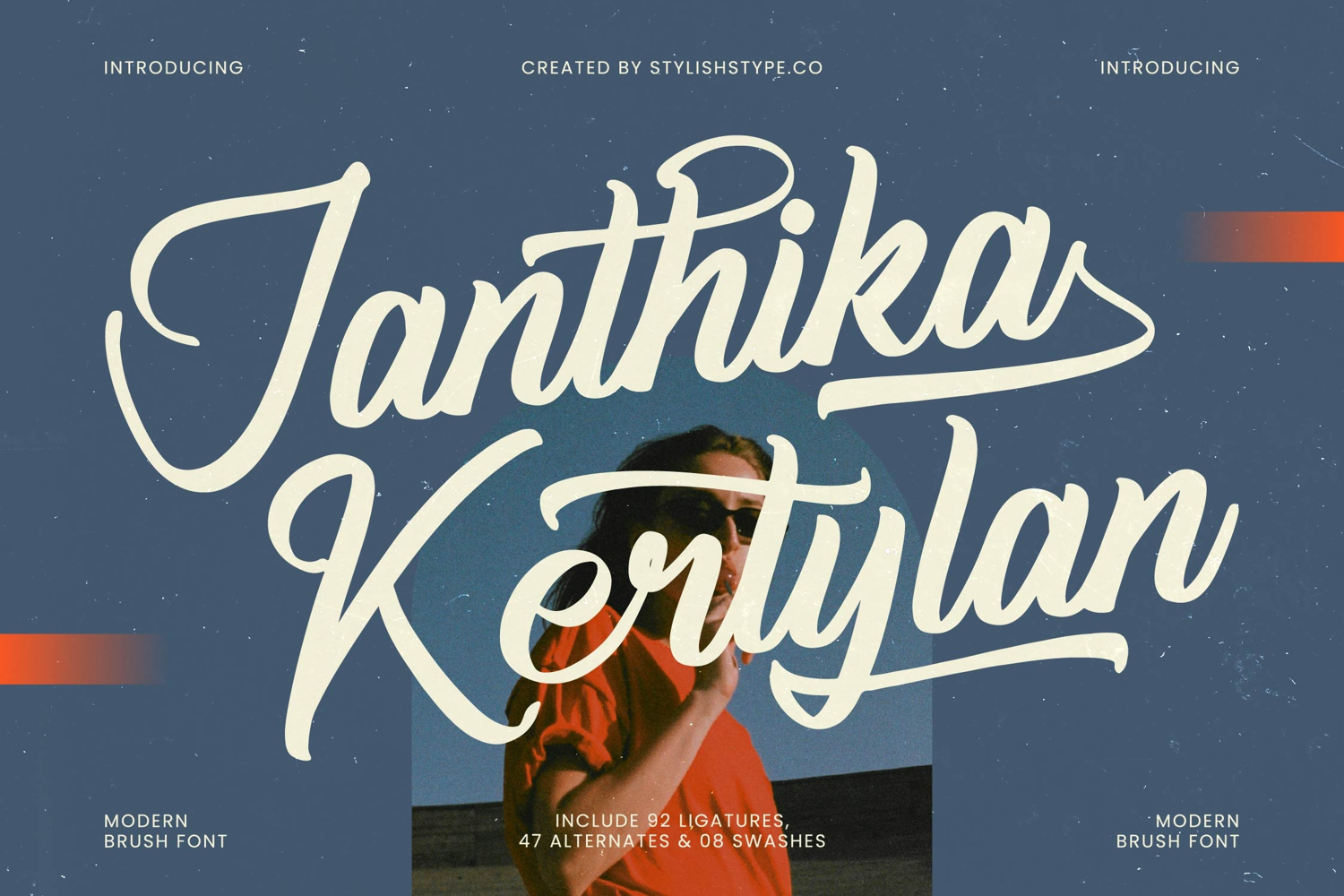
Janthika Kertylan - Modern Brush Font
Janthika Kertylan
Janthika Kertylan Italic
Janthika Kertylan - Modern Brush Font is a captivating, high-contrast script that fuses the spontaneity of hand-painted lettering with polished, modern elegance. Its unmistakable presence delivers instant visual impact, ensuring your headlines, titles, and logos possess a distinctly personalized and engaging voice. This font captures the dynamic energy of true brushwork while maintaining flawless digital readability and a premium aesthetic.